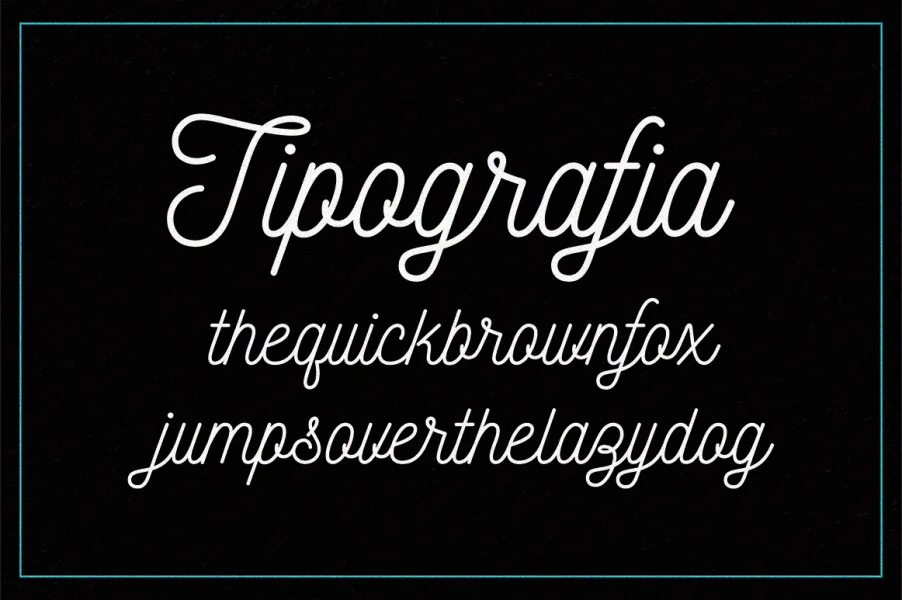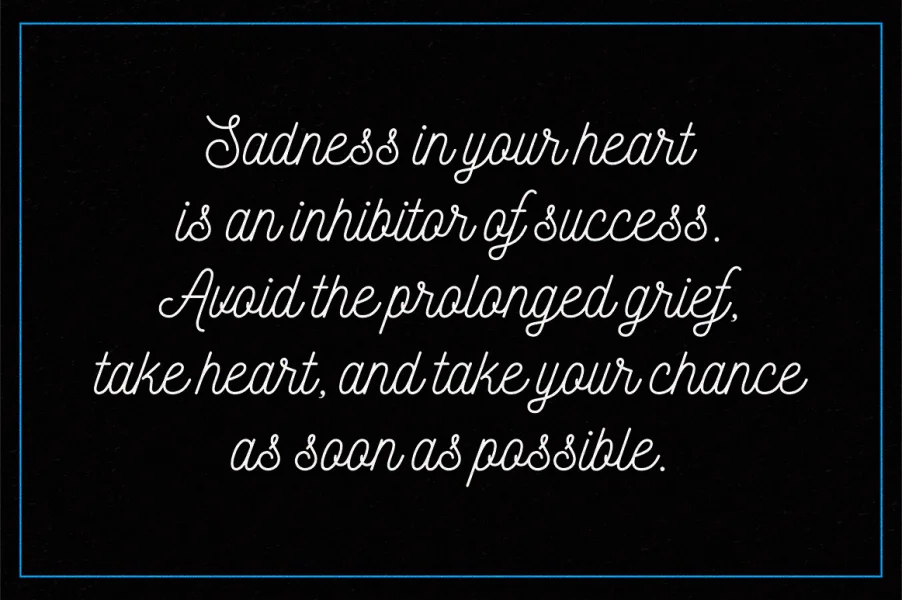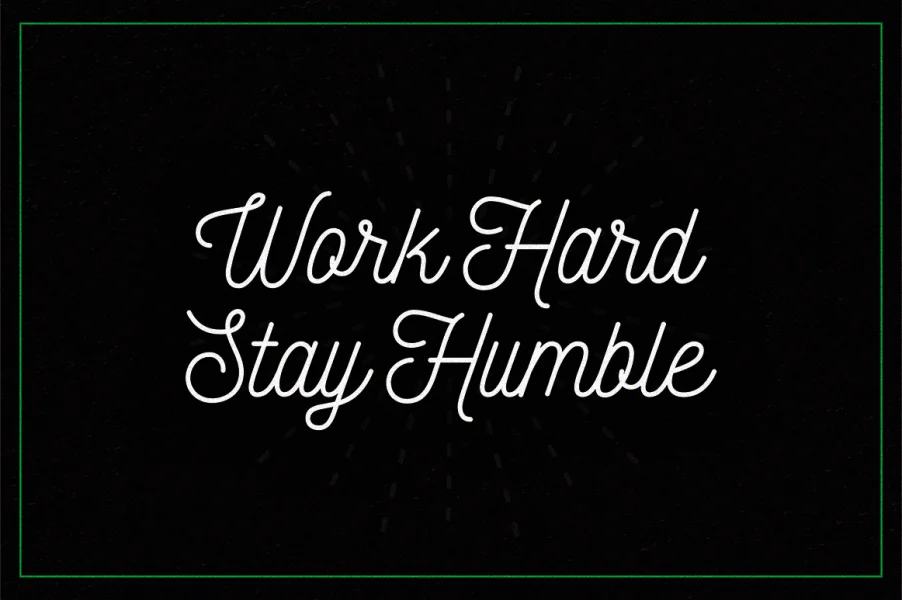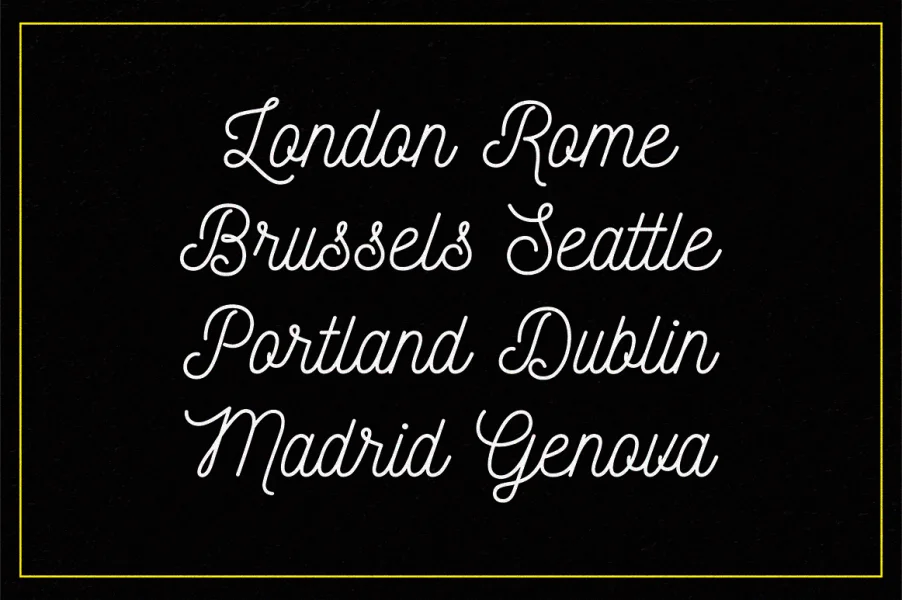
Nickainley is a monoline script handwriting font with a touch of classic and vintage, in uppercase, lowercase characters, numeral and punctuation. It can be used for various purposes, such as logos, wedding invitations, t-shirts, letterhead, signage, labels, news, posters, badges etc. https://www.behance.net/gallery/24243507/Nickainley-Script-Free-Font